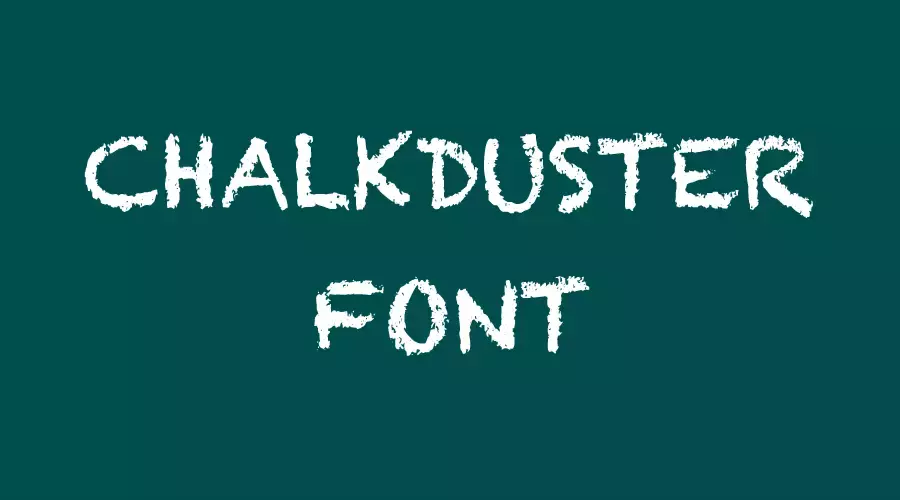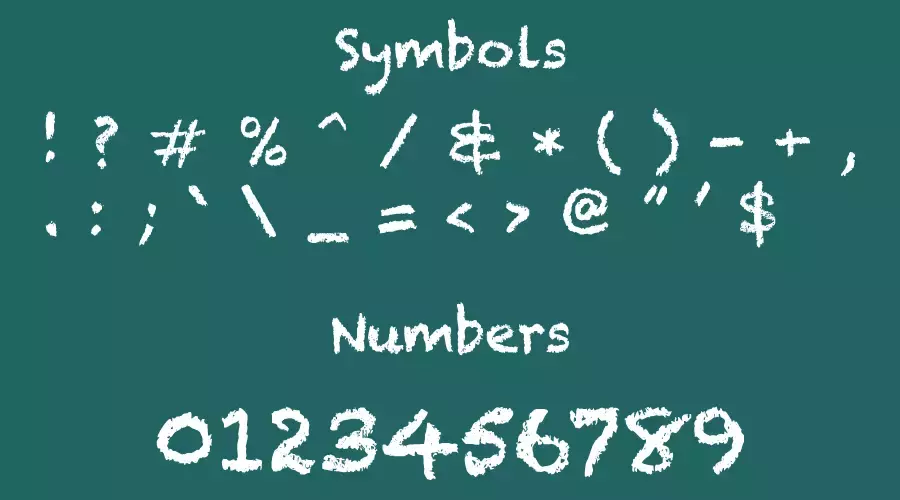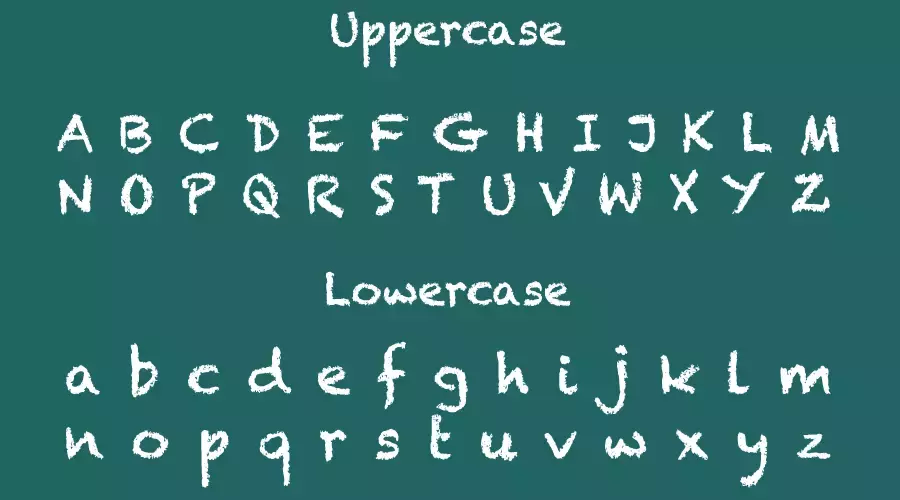
Chalkduster font is a font released by Apple in 2003. It was released as part of Mac OS X v10.3 and the 10.2.8 update.
It is a sans-serif font with a brush appearance, and it is ideal for use over images, branding, or banners.
It can be used for newspaper headlines, magazine covers, quotes for pictures, video titles, and more.
It is a handwritten font that looks like someone has drawn the strokes with chalk. The work is a testament to the designer’s talent, and anyone who sees it will appreciate his fine craftsmanship.
Chalkduster has only one regular style, which gives any text a rough, fancy look.
It has two styles, and Sandy added them. It is comparable to Sotis.
Chalkduster is a font designed to resemble the lettering created by a chalkboard or chalk. It is often used for educational or nostalgic purposes, and can be found in various design projects, such as posters, signs, and presentations. You can download and use this font on your projects.